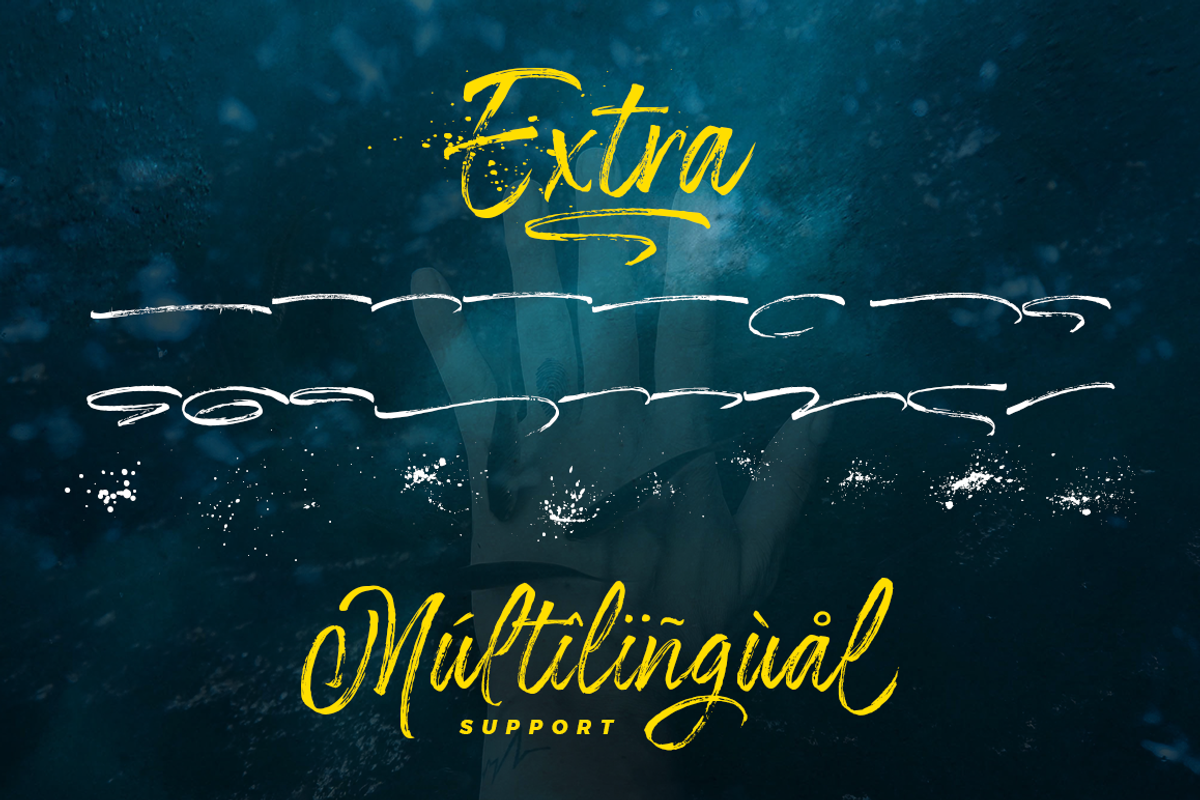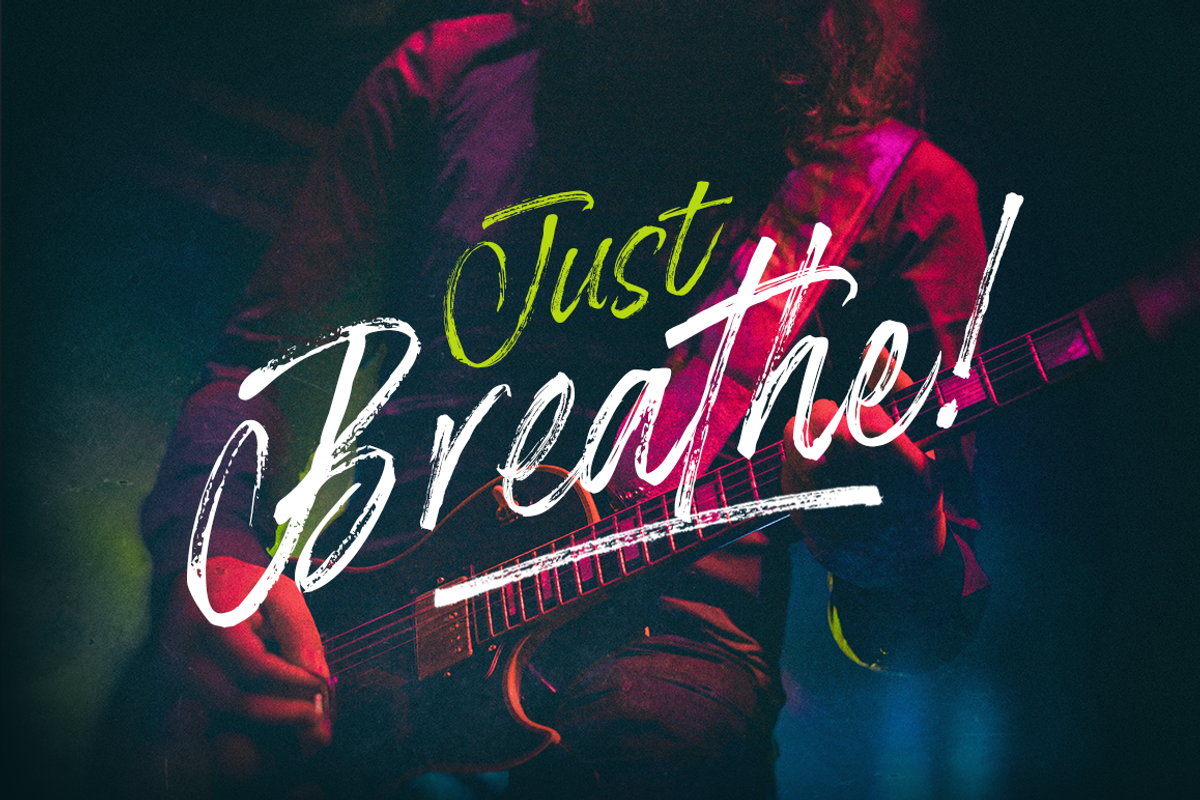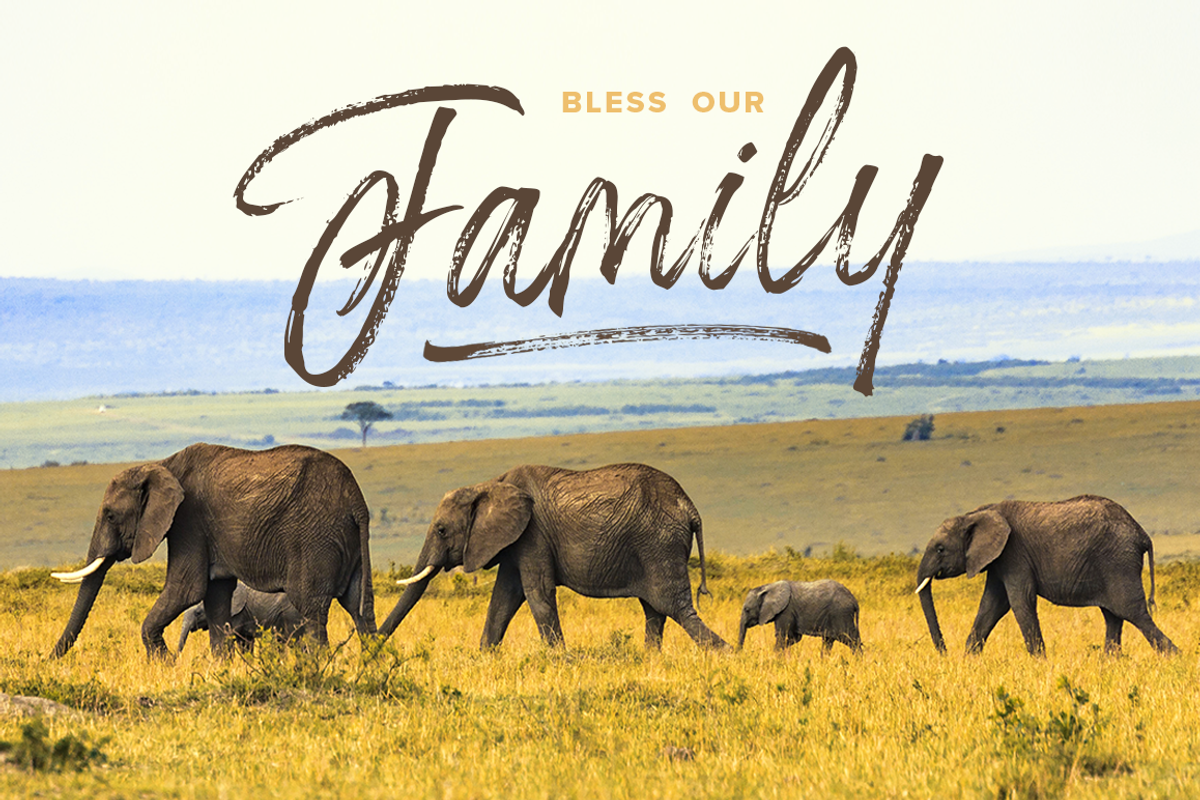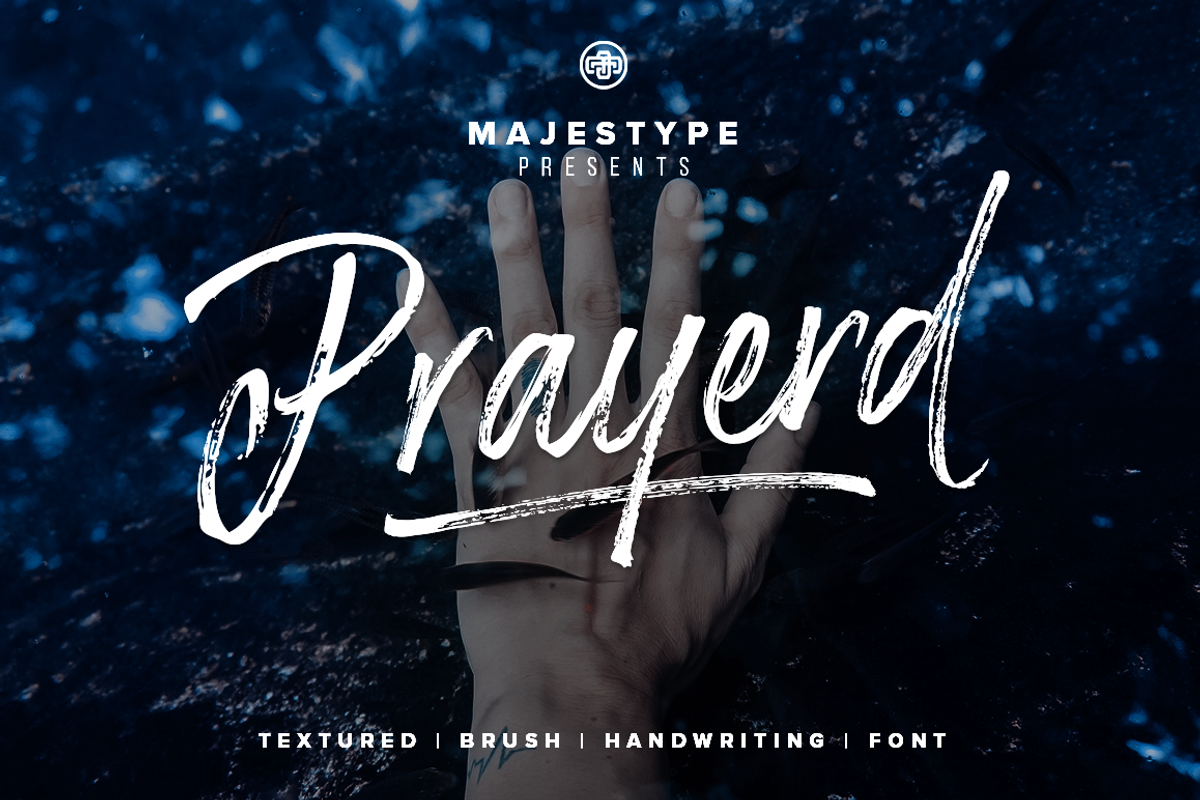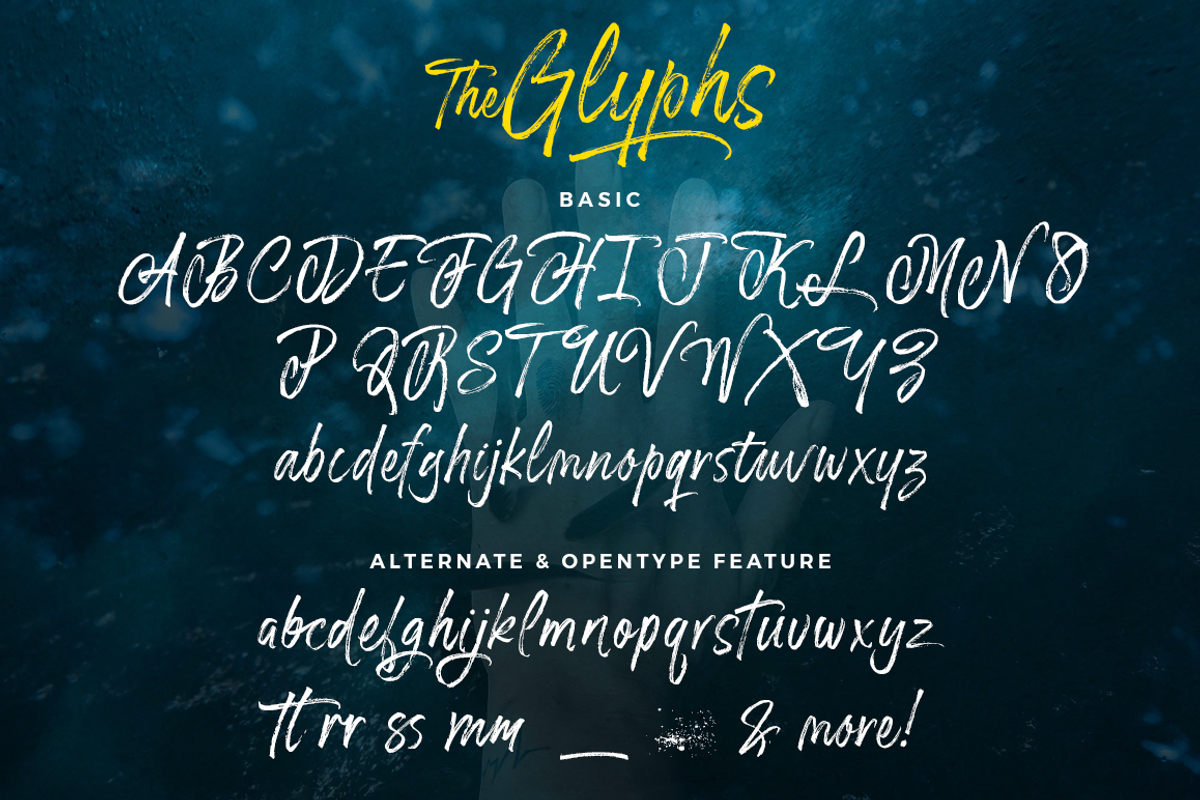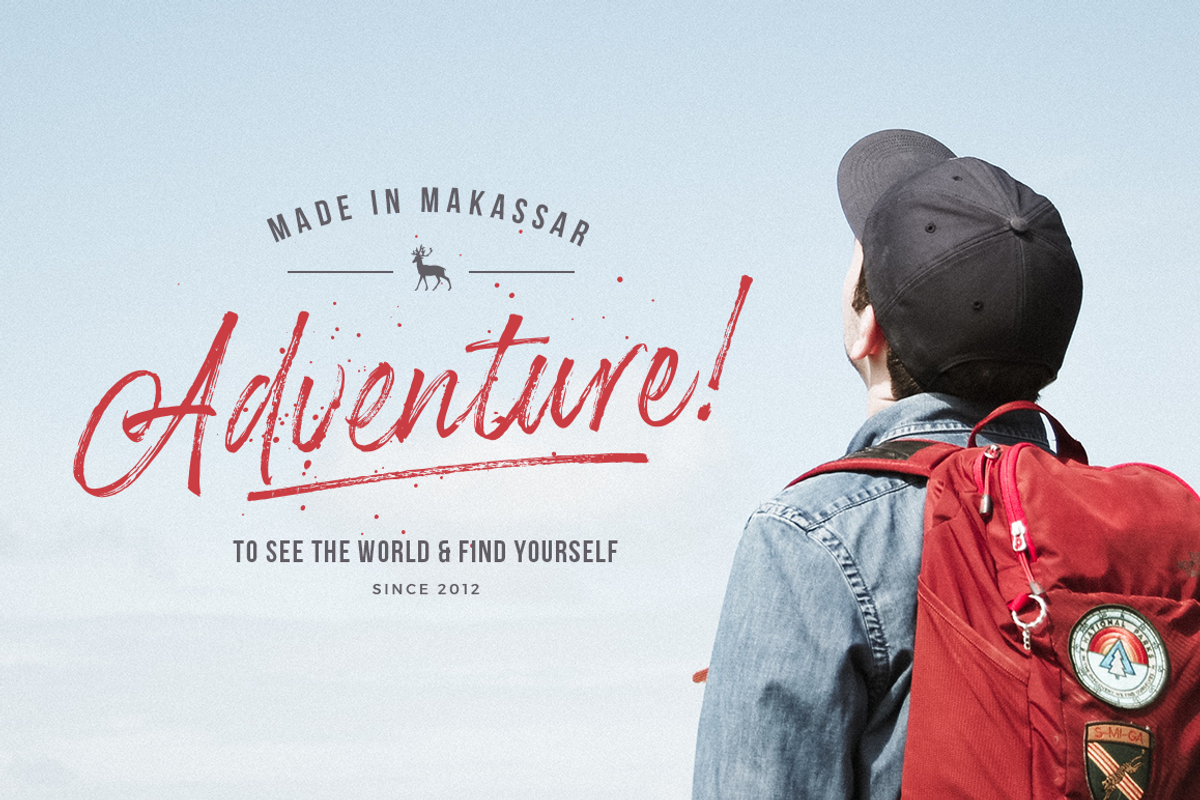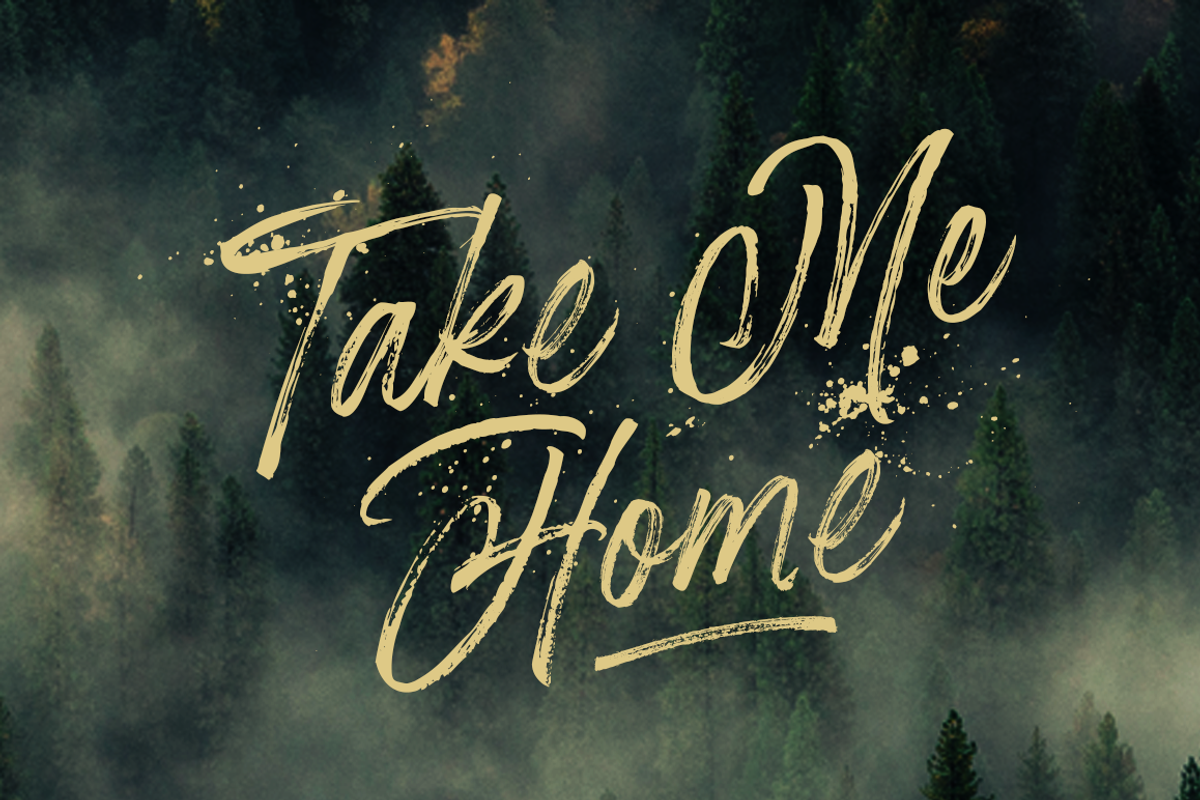
Prayerd - Brush Calligraphy Font
Prayerd the energic font made by Brushpen. Comes with a lot of Glyphs and The Extras that will give you more option to play with your creativity. Prayerd focus on texture, neatness and uniqueness on every glyph so this font will look really nice on design like t-shirt design, paper bag, packaging, branding and other goods.
Type Designer : Dexsar Harry Anugrah